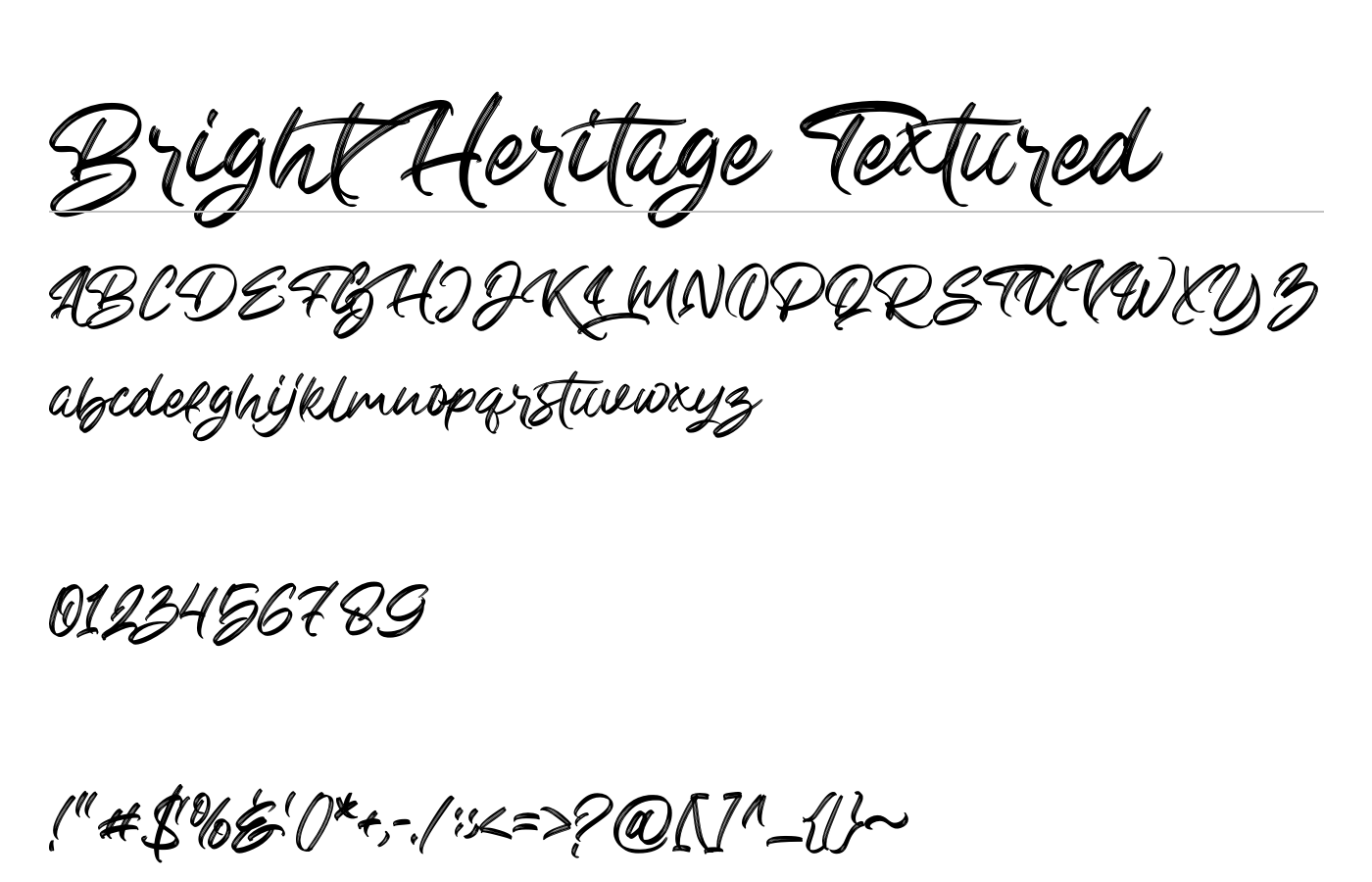
Bright Heritage Textured is a lively, script-style font featuring elegant, flowing strokes with a hand-painted texture that adds a charming, organic feel. Its medium weight and dynamic letterforms create a sense of warmth and creativity, making it ideal for stylish branding, invitations, and artistic projects that seek a personal and approachable touch. This font stands out in designs needing a blend of sophistication and expressive character.
Bright Heritage Textured Font
About Bright Heritage Textured Font
| Font family | Bright Heritage Textured Font |
| Designer | Icep A. Fadhil |